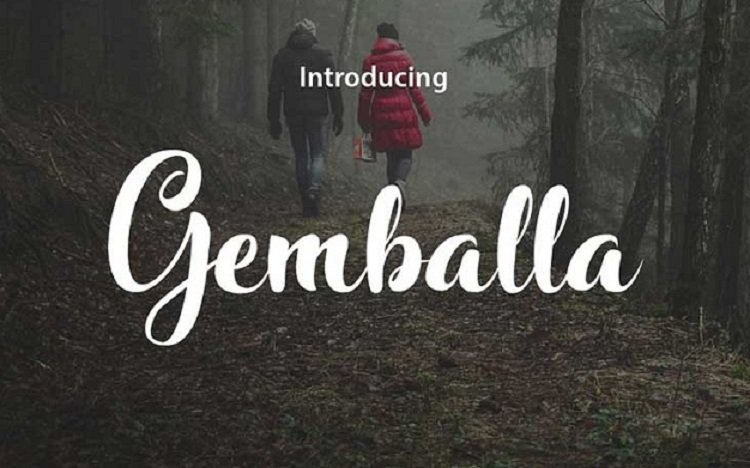
Gemballa Font
Gemballa is a beautiful and modern handwriting script Typeface.
This font Suitable for any project products, such as wedding invitations, greeting cards, design of water-based paints, correspondence, and a variety of other purposes and more.